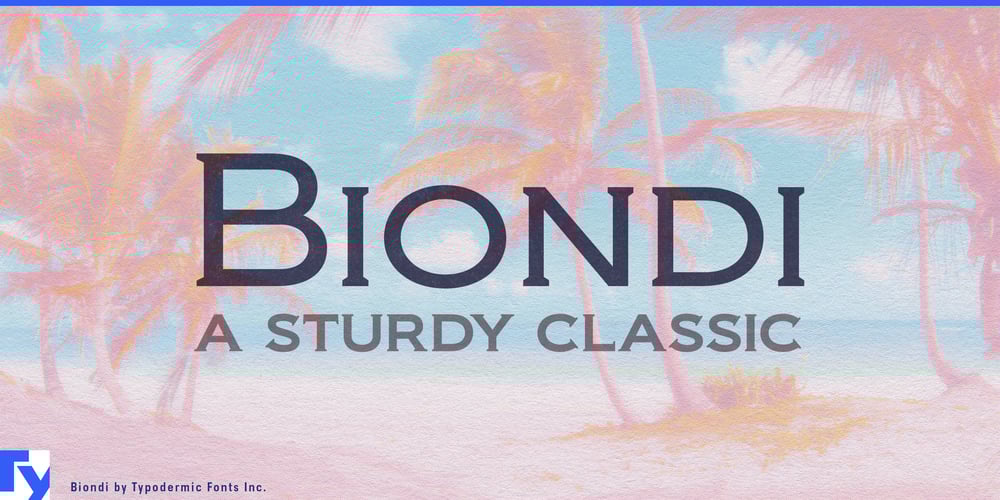
Biondi
Biondi font
Biondi Font Family was designed by Ray Larabie and published by Typodermic. Biondi contains 10 styles and family package options. Introducing Biondi, a sophisticated typeface that breathes new life into classic design. Inspired by the iconic Copperplate Gothic, Biondi retains the beloved wide, squarish shape of its predecessor while boldly stepping into the modern era.At its core, Biondi features a set of small caps slab-serif characters that exude quiet authority. But what truly sets it apart are the beefed-up wedge serifs, replacing delicate hairlines with robust forms that command attention in today’s high-resolution displays. Every character in Biondi is a testament to thoughtful design. Strategically placed serifs create a smooth, flowing text line without sacrificing an ounce of gravitas. The result is a typeface that’s as comfortable gracing a luxury brand logo as it is headlining a scholarly journal.Biondi’s versatility shines through its five weights and matching italics, offering designers a rich palette to work with. From the whisper of Extra-Light to the declaration of Bold, Biondi adapts to your vision while maintaining its distinct personality. But Biondi isn’t just about looks—it’s a global communicator. With support for Latin-based European languages, Vietnamese, Greek, and most Cyrillic-based writing systems, Biondi ensures your message resonates across cultures with the same refined elegance.Choose Biondi when you need typography that bridges the gap between heritage and innovation. It’s more than a font—it’s a statement of timeless sophistication, ready to elevate your designs from ordinary to extraordinary. Whether you’re crafting the next iconic logo, designing an upscale magazine spread, or creating signage for a world-class institution, Biondi provides the typographic foundation for designs that are both classic and contemporary.Experience the evolution of elegance with Biondi—where tradition meets modernity in perfect typographic harmony.